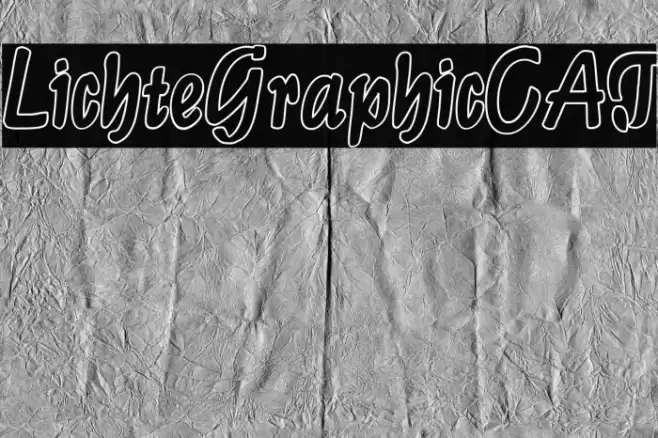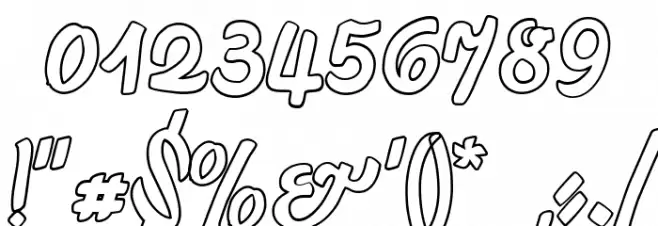
LichteGraphicCAT Font
LichteGraphicCAT Description
This font features a playful and dynamic outline style, characterized by its bold and flowing script-like appearance. The uppercase letters are designed with a consistent stroke width, giving them a cohesive look, while the lowercase letters maintain a similar style with a slightly more cursive influence. The numbers and special characters follow the same outline pattern, ensuring uniformity across the set. This font's unique style makes it stand out, with each character exhibiting a sense of movement and energy. The overall design is both modern and decorative, making it suitable for various creative applications.
A bold, playful outline font with a dynamic, script-like style from Uncategorized fonts.
- Proposed Projects: Ideal for creative projects such as posters, invitations, and branding materials where a lively and eye-catching font is desired.
- Overall Style: Modern, Decorative